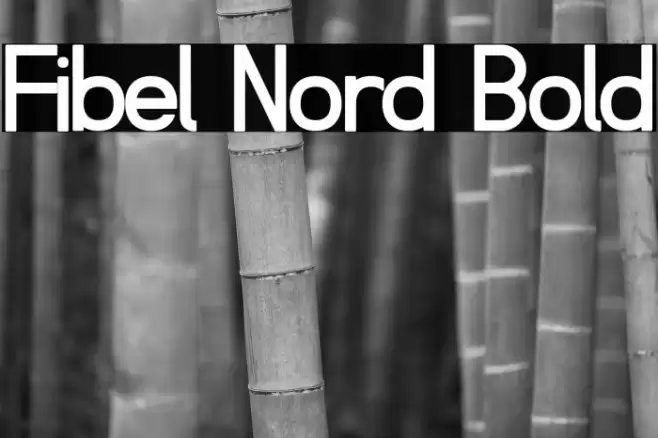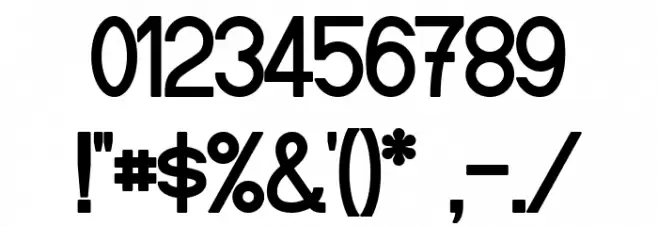
Fibel Nord Bold Font
Fibel Nord Bold Description
This font features a bold and clean sans-serif style, characterized by its geometric shapes and uniform stroke widths. The uppercase letters are tall and commanding, while the lowercase letters maintain a consistent height, contributing to a balanced appearance. The numerals are clear and easily distinguishable, making them suitable for various applications. Special characters are well-defined, enhancing the font's versatility. The overall design is modern and straightforward, ideal for conveying a sense of clarity and professionalism.
A bold, geometric sans-serif font with a modern and clean appearance from Uncategorized fonts.
- Proposed Projects: Ideal for branding, advertising, headlines, and digital interfaces where clarity and impact are essential.
- Use Case: Headlines, Logos, Digital Interfaces